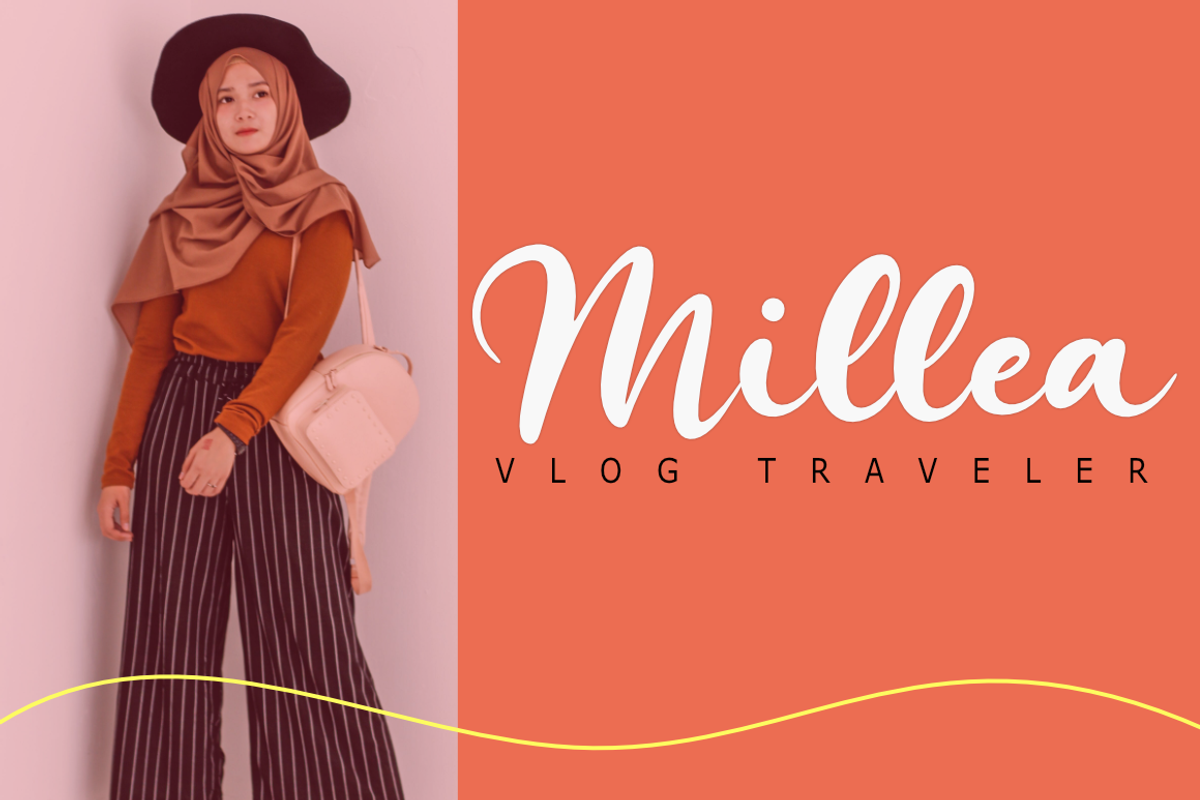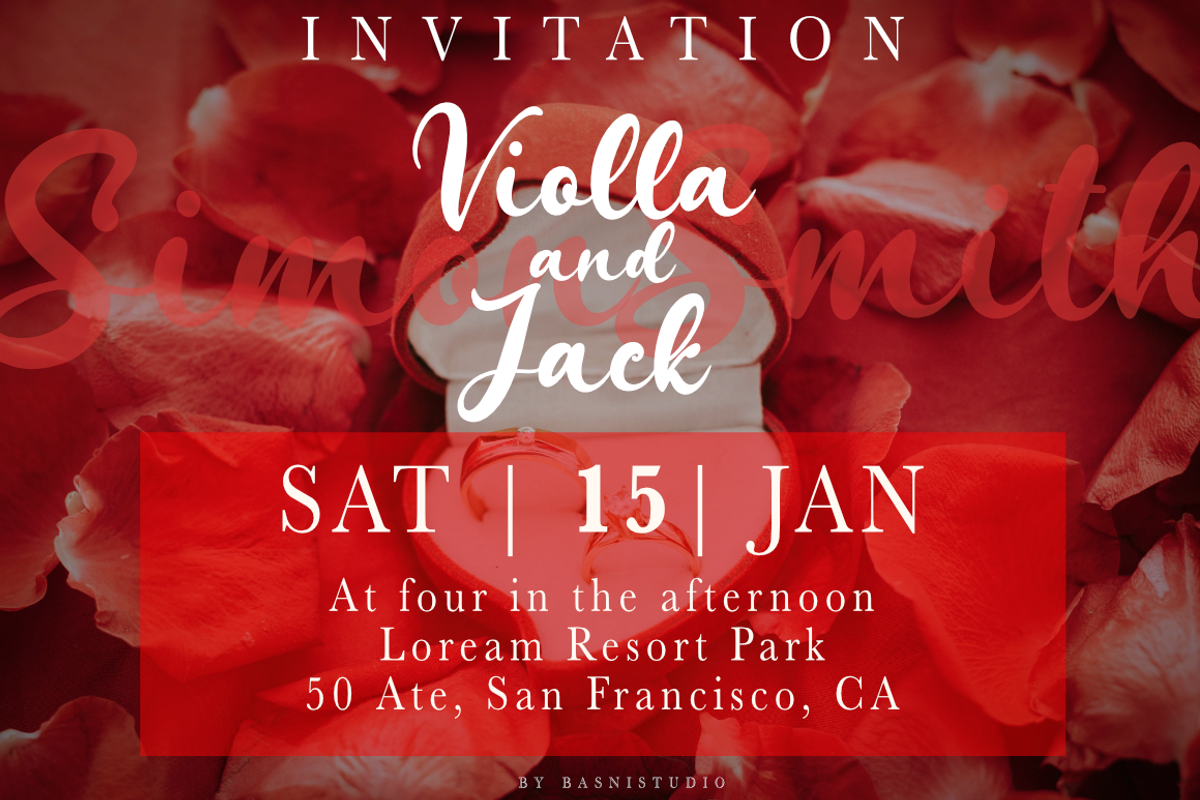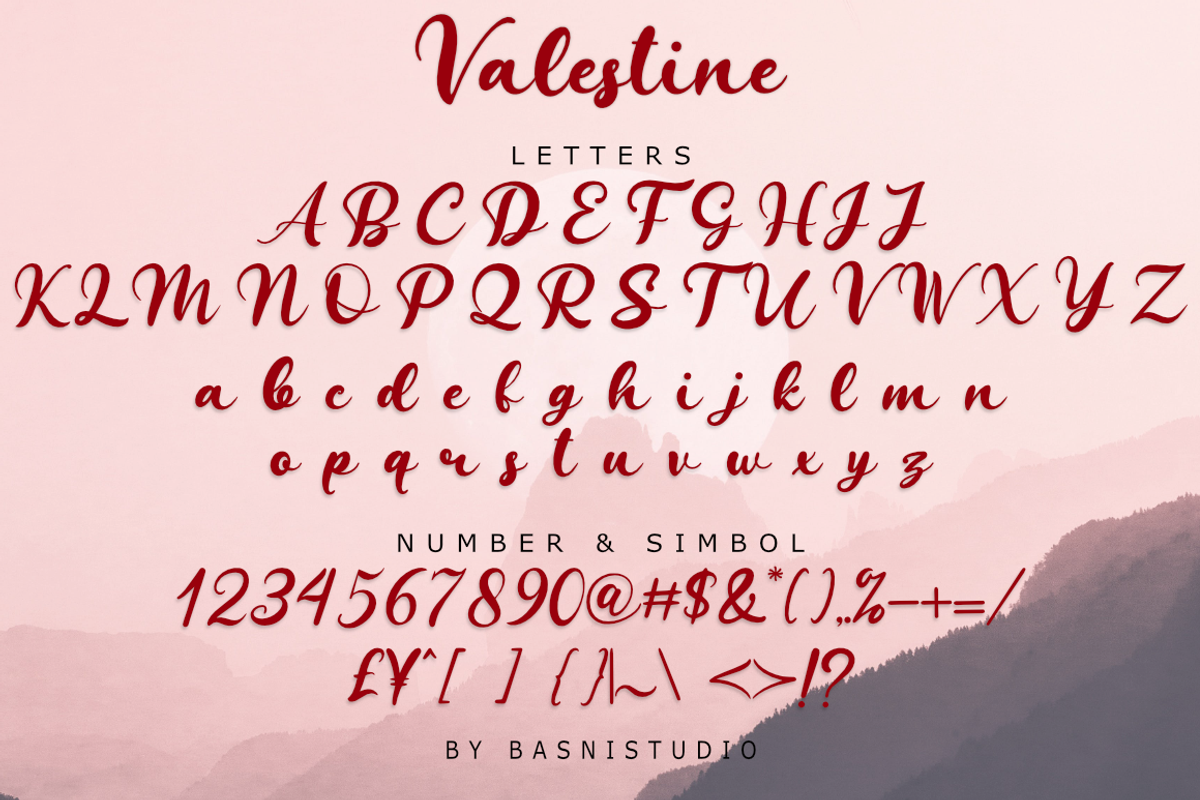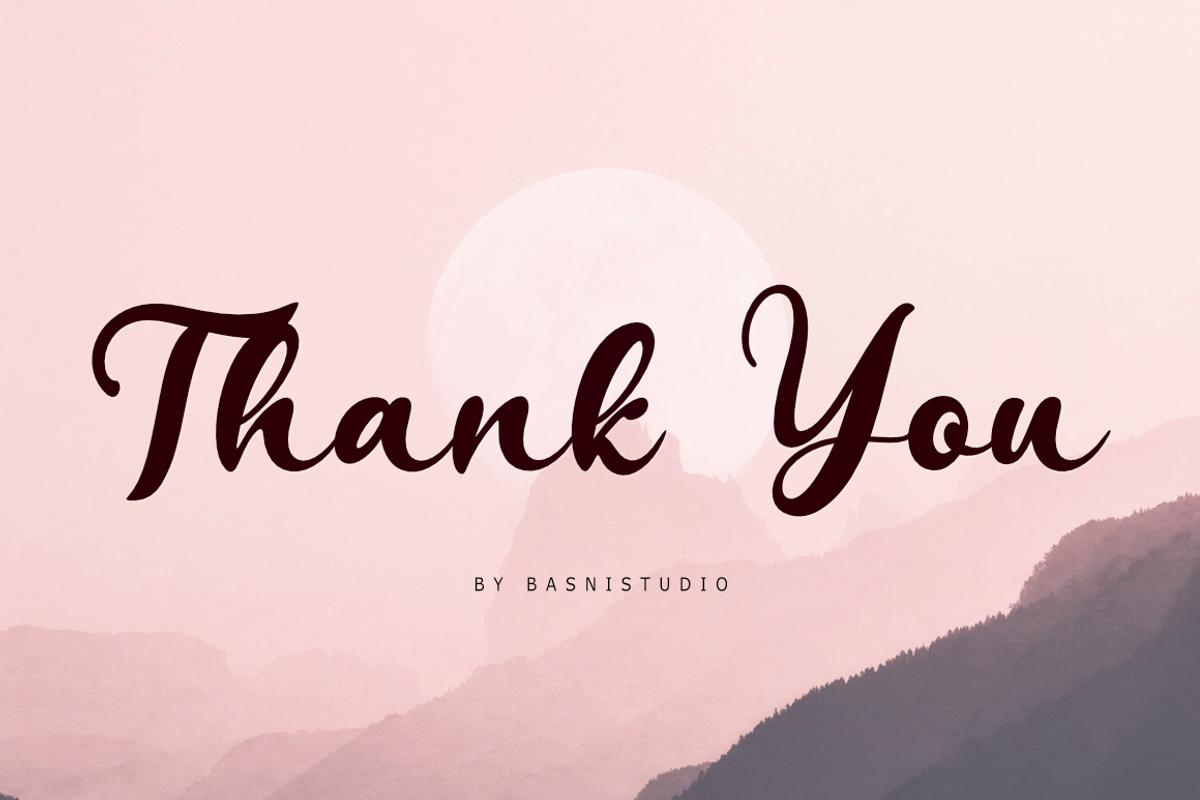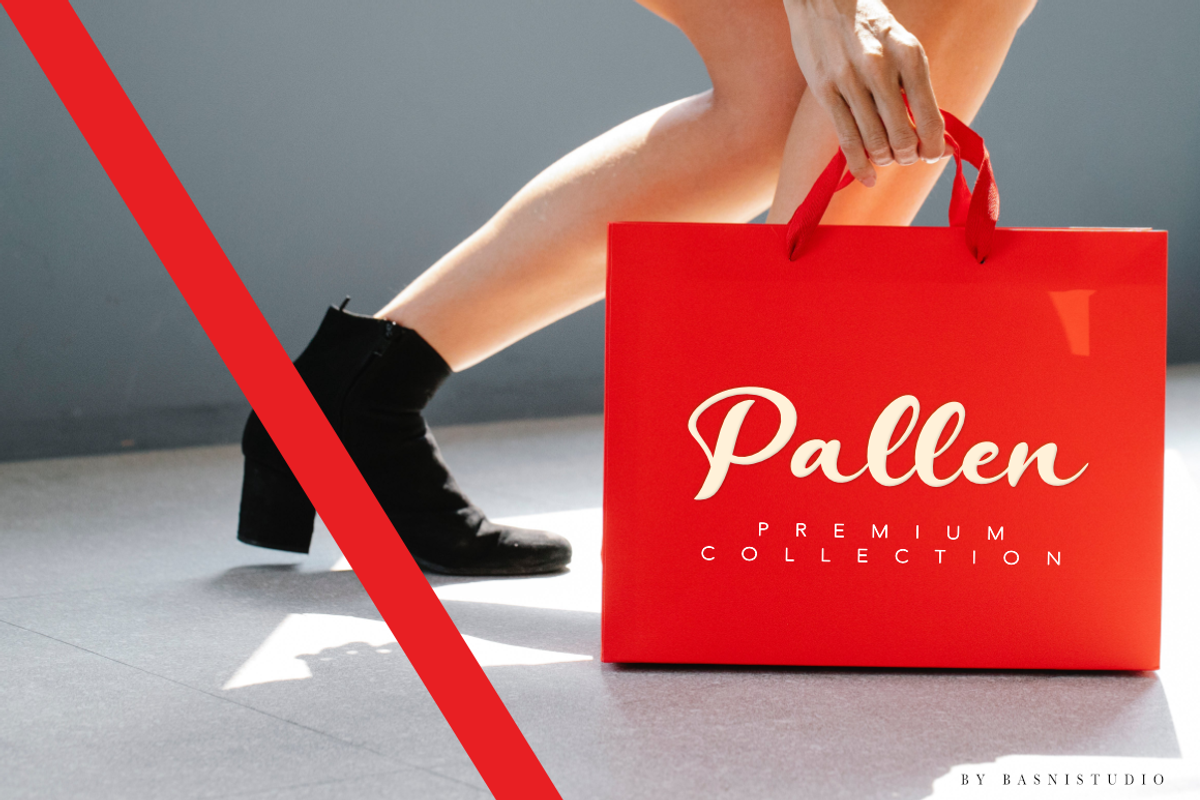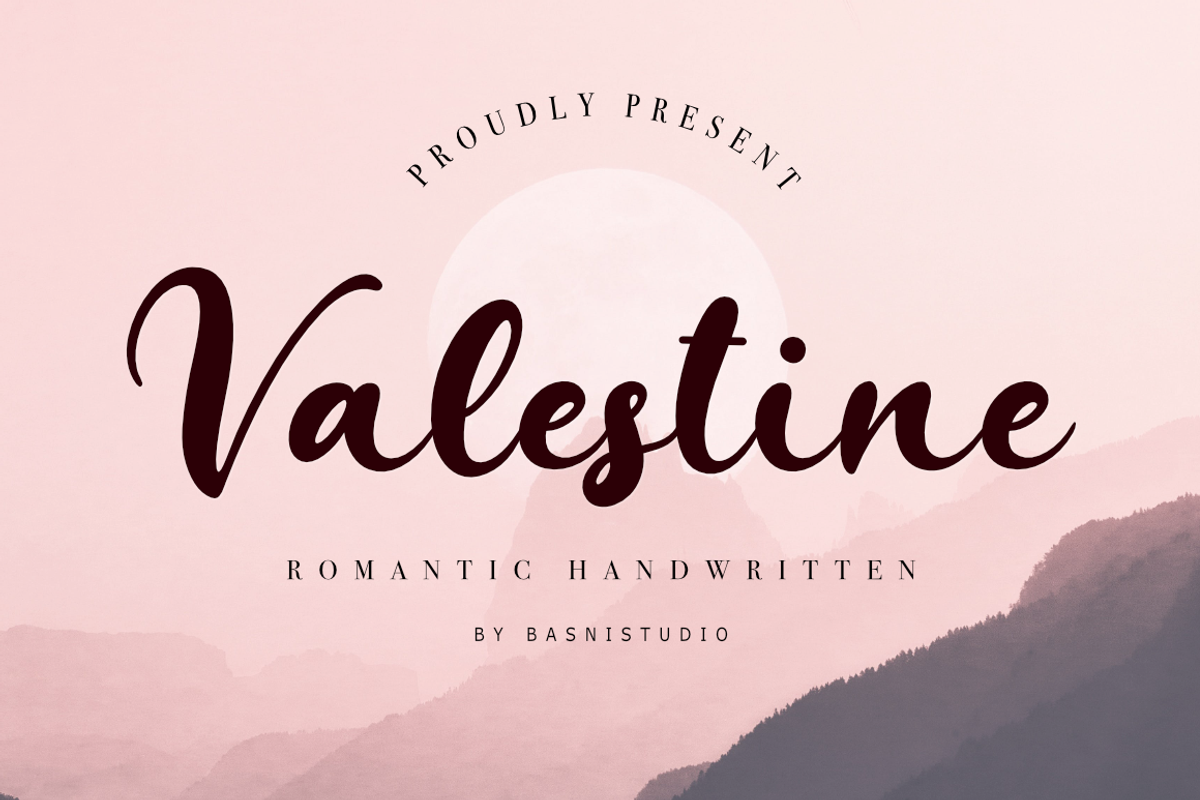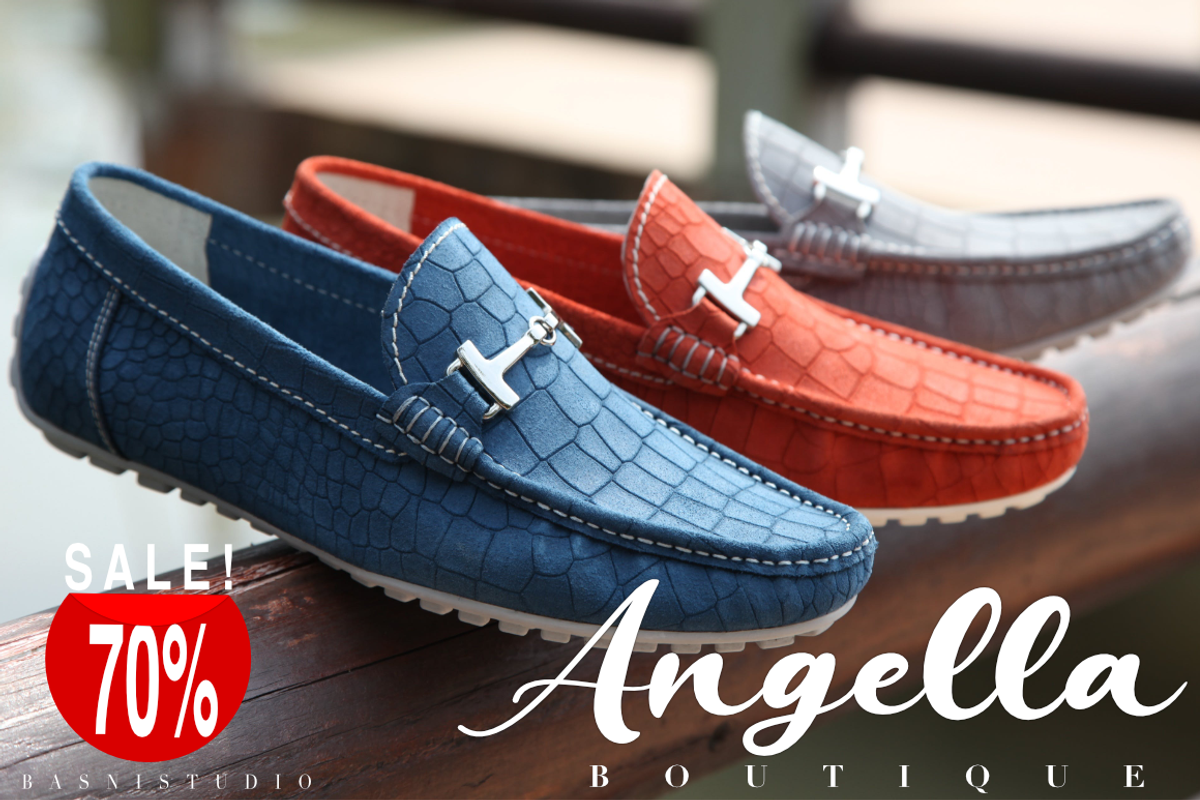
Valestine Romantic Handwritten
Introducing Valestine Romantic Handwritten Font
Valestine Romantic Handwritten Font, made with Love, Precision and Stylish, perfect for branding, websites, and editorial designs. Includes all Character letters, multilingual support, punctuation, binding. everything can be easily accessed using software that supports OpenType. What’s include: